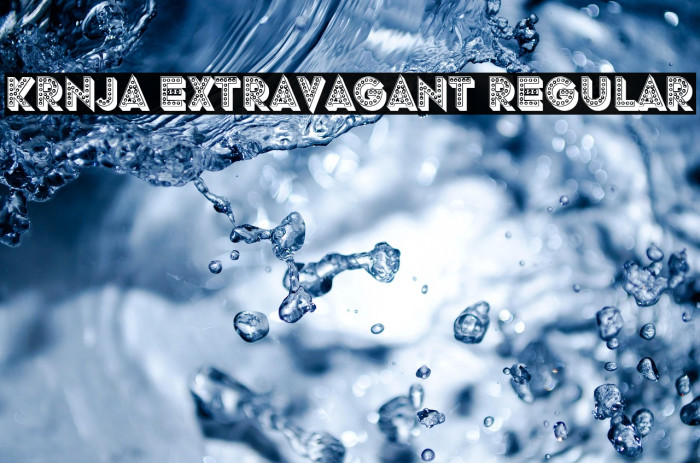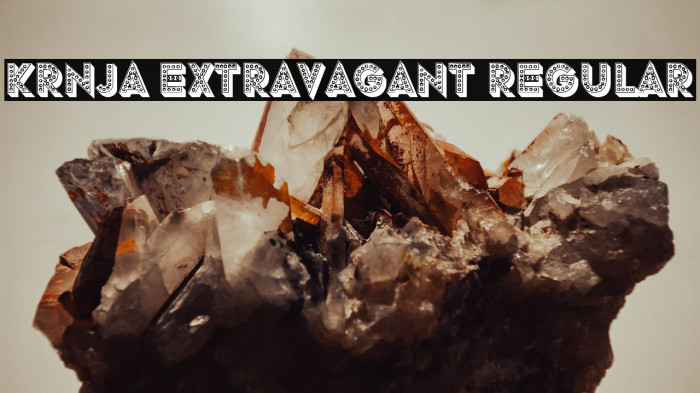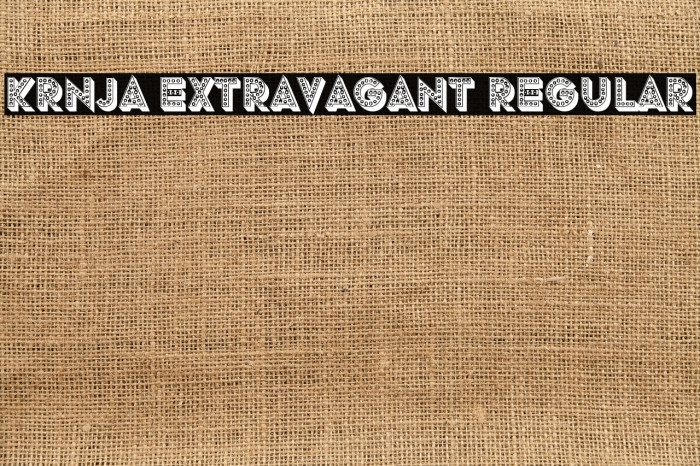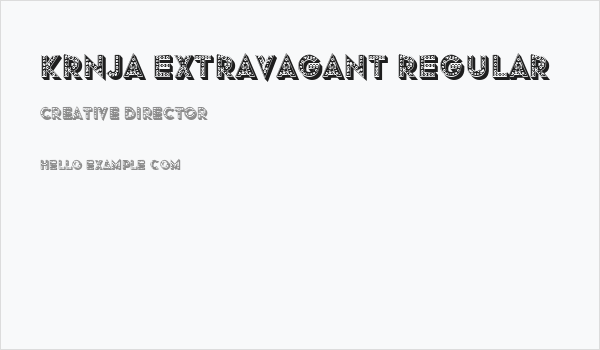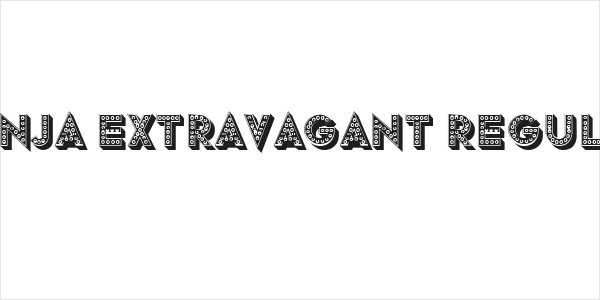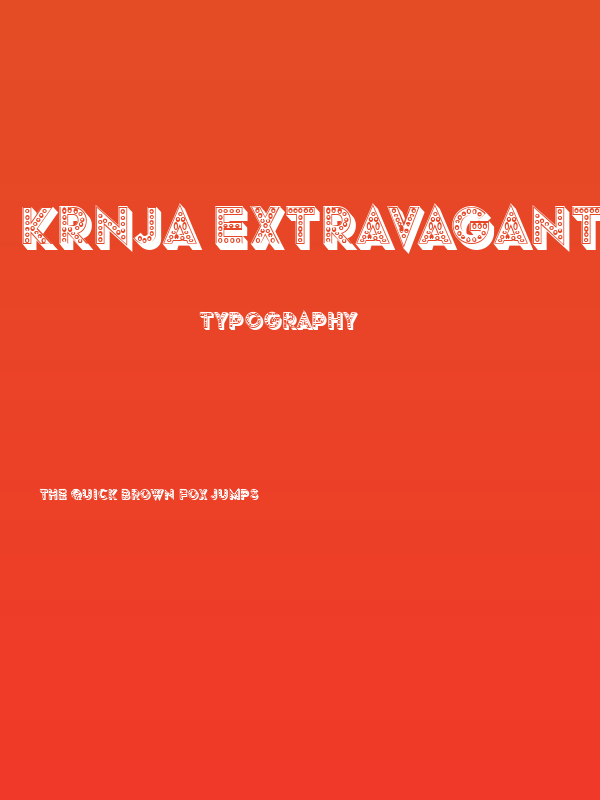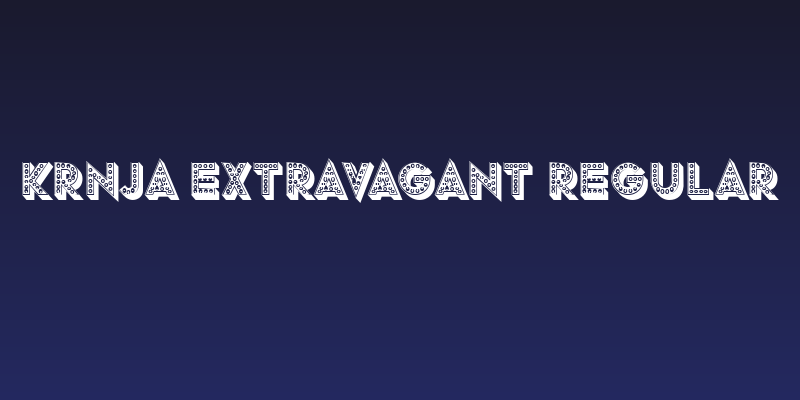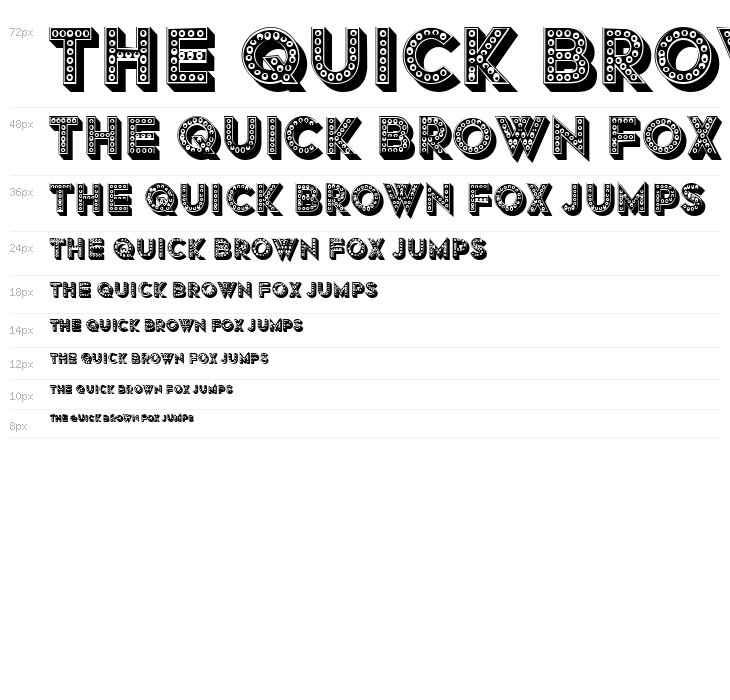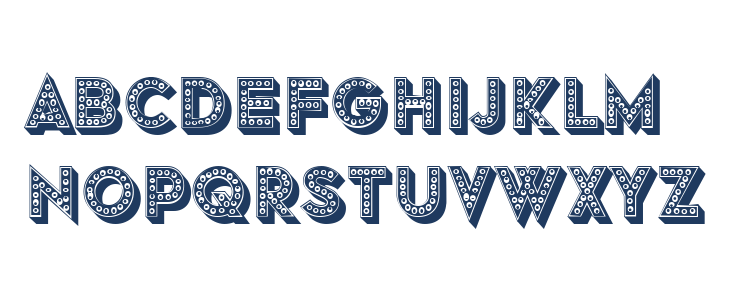
Krnja Extravagant Regular Font
Krnja Extravagant Regular Description
This font features a bold, decorative style with a three-dimensional effect. Each character is adorned with circular patterns, giving it a playful and extravagant appearance. The letters are uppercase and have a shadow effect that enhances their depth. The design is reminiscent of marquee lights, making it ideal for eye-catching displays. The intricate detailing within each letter adds a unique flair, making it suitable for creative and artistic projects. The overall look is both modern and vintage, combining classic elements with a contemporary twist.
| Proposed Projects | Perfect for poster designs, event invitations, signage, and any project requiring a standout, artistic font. |